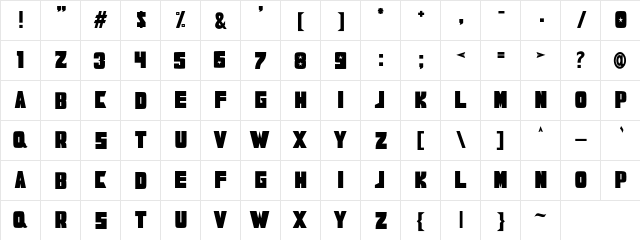
RODRUP Regular
Design Context for RODRUP Typeface
RODRUP offers clean, dependable letterforms without strong stylistic allegiance, making it a practical choice for designers who need flexibility.